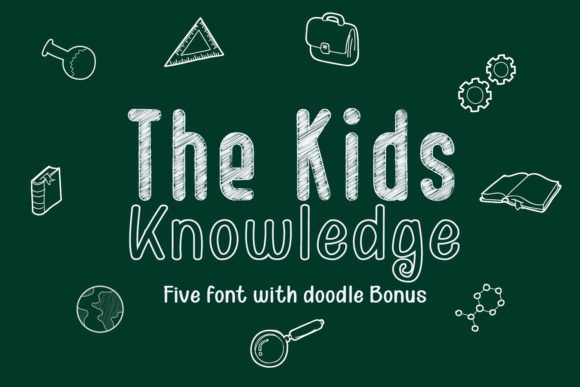
In a world teeming with digital content, your words, your designs, they have the power to captivate audiences, to ignite imaginations, and to leave an indelible mark on the hearts and minds of your readers. Imagine a font family that possesses the charm of a child's science project, a font family that dances off the page with its playful and captivating energy. Prepare to be swept off your feet by Kids Knowledge Family Font, a typographic masterpiece lovingly crafted by 38.lineart, designed to unleash your creativity and transform your designs into extraordinary works of art.
Meet the Kids Knowledge Family, a remarkable sans-serif font family composed of five distinct yet harmonious styles, each possessing its own unique personality. They're the perfect partners for each other, allowing you to mix and match, blend and contrast, to create designs that burst with visual intrigue and storytelling prowess. Think whimsical posters that transport you to a world of wonder, eye-catching logos that spark curiosity and ignite imaginations, and social media posts that dance off the screen with infectious energy.
This font family is not just a collection of letters and symbols; it's a treasure trove of creative possibilities, a gateway to a world where your imagination can run wild. Let your fingers dance across the keyboard, guided by the Kids Knowledge Family Font, and watch as ordinary words transform into extraordinary tales, as mundane designs morph into captivating works of art. Let your creativity soar, let your imagination take flight, and experience the sheer joy of creation with Kids Knowledge Family Font as your trusty companion.
But wait, there's more! As a special bonus, you'll also receive a treasure chest filled with 52 clip-art vectors, ready to enrich your designs with a touch of playful charm. These delightful illustrations, inspired by the boundless creativity of children, will add an extra layer of enchantment to your projects, transforming them into captivating visual feasts.
With Kids Knowledge Family Font, you're not just downloading a font, you're embarking on a creative adventure, a journey into a realm where imagination reigns supreme. Let the playful spirit of this font family ignite your creativity, let the joy of creation flow through your veins, and watch as your designs blossom into masterpieces that leave an unforgettable impression.